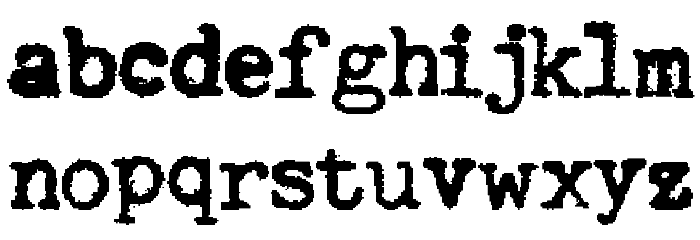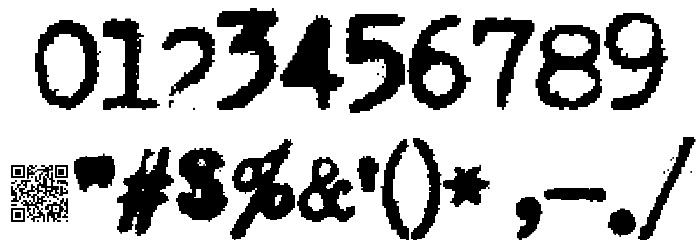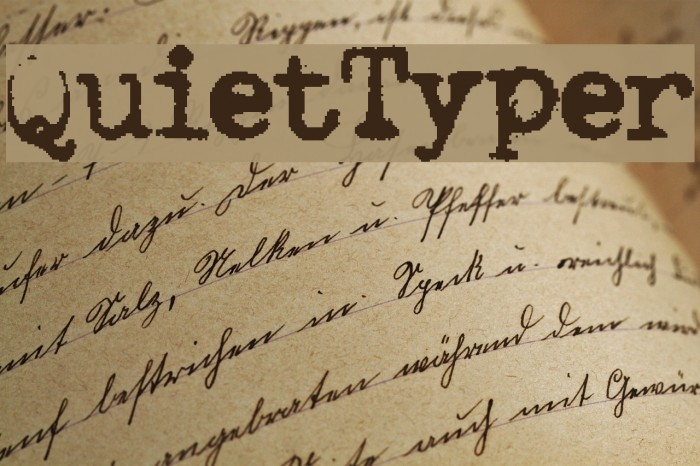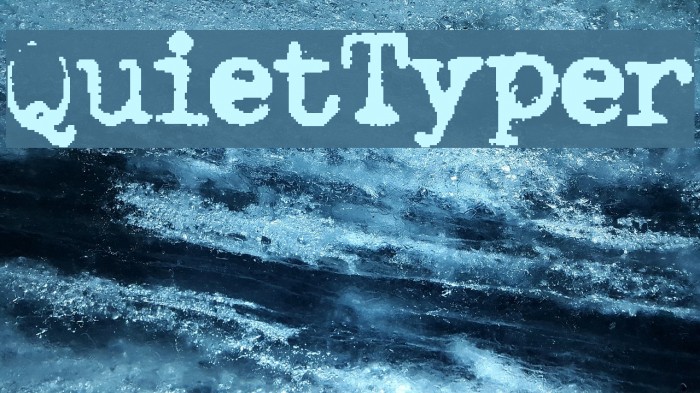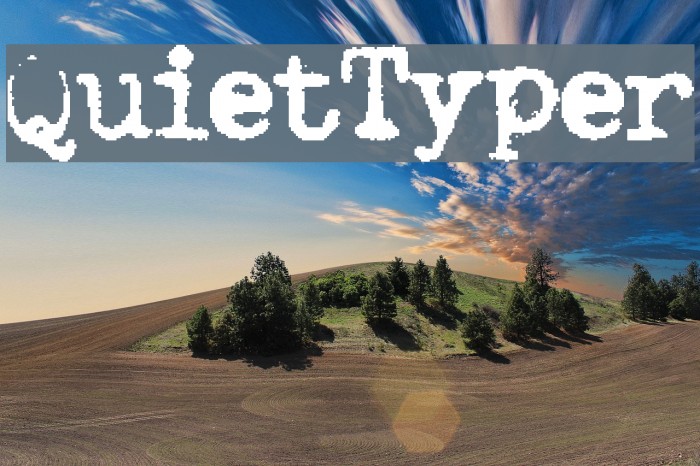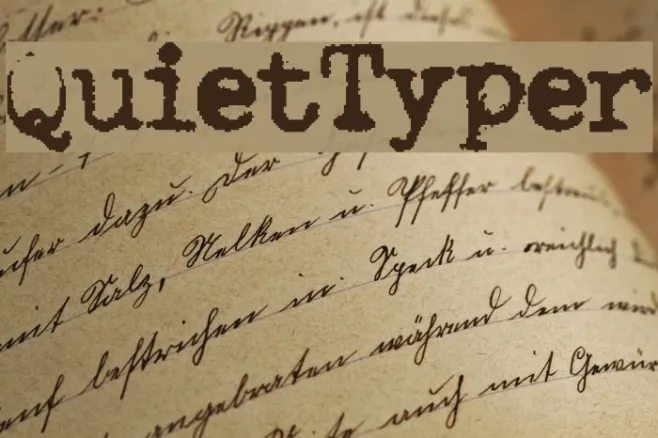
QuietTyper Font
This font features a distressed, textured appearance reminiscent of typewriter text with a vintage flair. The characters are bold and have a slightly irregular outline, giving them a handcrafted feel. Uppercase and lowercase letters maintain a consistent style, with rounded edges and a worn look that adds character. Numbers and special characters follow the same design, ensuring uniformity across all glyphs. The font's unique style makes it stand out, perfect for projects that require a touch of nostalgia or a rustic aesthetic.
A bold, textured typewriter-style font with a vintage, handcrafted look.
- Proposed Projects: Ideal for vintage-themed posters, retro branding, book covers, and creative projects that require a distinctive, aged appearance.
- Overall Style: Vintage